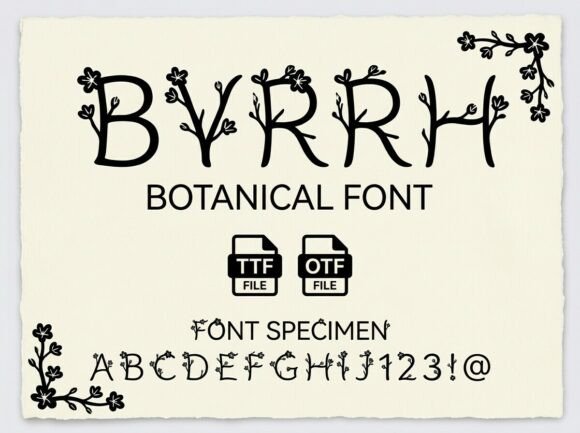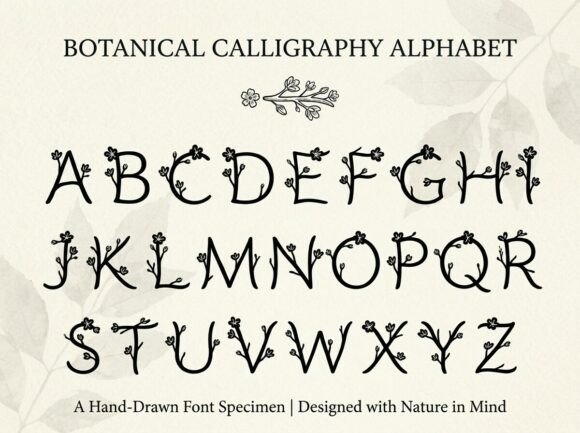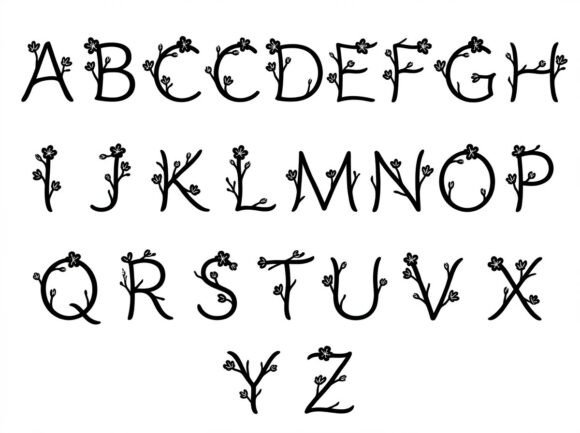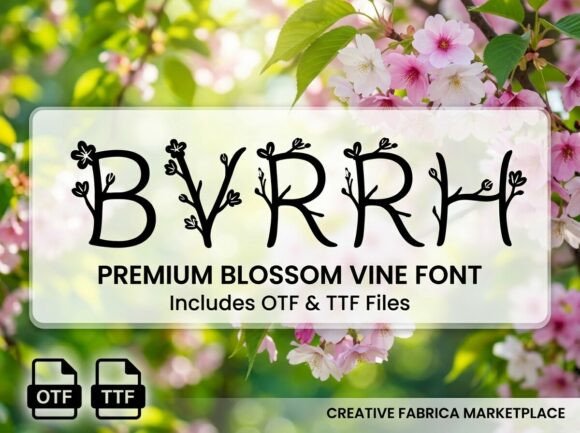
Introducing Byrrh Font: Elevate Your Creative Projects with a Unique Decorative Display Font
Are you tired of using the same old fonts for your creative projects? Do you want to add a touch of personality and sophistication to your designs? Look no further than Byrrh Font, a decorative display font designed to be the centerpiece of any layout. With its distinct artistic elements and strong character, Byrrh Font is perfect for creators who want to break away from the ordinary and elevate their designs to the next level.
What Makes Byrrh Font Special?
Byrrh Font is a unique and powerful tool for designers and crafters. Its distinct artistic elements and strong character make it perfect for a variety of creative projects, from bold headlines to creative branding and packaging. The font delivers a high-end, professional aesthetic without compromising on personality, making it ideal for designers who want to create visually stunning designs that stand out from the crowd.
Key Features of Byrrh Font
So, what can you expect from Byrrh Font? Here are some of its key features:
- All-Caps Display Typeface: By design, Byrrh Font is an all-caps display typeface, making it perfect for logos, titles, and decorative initials. The font does not contain lowercase letters, which allows for a more dramatic and impactful design.
Uses for Byrrh Font
So, what can you use Byrrh Font for? The possibilities are endless! Here are some ideas to get you started:
- Bold Headlines: Use Byrrh Font to create bold and eye-catching headlines that grab attention and make a statement.
- Creative Branding: The font is perfect for creative branding and packaging, allowing you to create a unique and memorable brand identity.
- Logos and Titles: Byrrh Font is ideal for logos and titles, providing a professional and high-end aesthetic that’s sure to impress.
- Decorative Initials: The font’s all-caps design makes it perfect for decorative initials, adding a touch of elegance and sophistication to any design.
Why Choose Byrrh Font?
So, why choose Byrrh Font over other decorative display fonts? Here are just a few reasons:
- Unique Design: Byrrh Font has a unique and distinctive design that’s sure to stand out from the crowd.
- High-End Aesthetic: The font delivers a high-end, professional aesthetic that’s perfect for designers who want to create visually stunning designs.
In conclusion, Byrrh Font is a powerful and unique decorative display font that’s perfect for designers and crafters who want to elevate their creative projects. With its distinct artistic elements and strong character, it’s ideal for a variety of designs, from bold headlines to creative branding and packaging. The font’s high-end aesthetic and ease of use make it a must-have for any designer looking to take their designs to the next level.